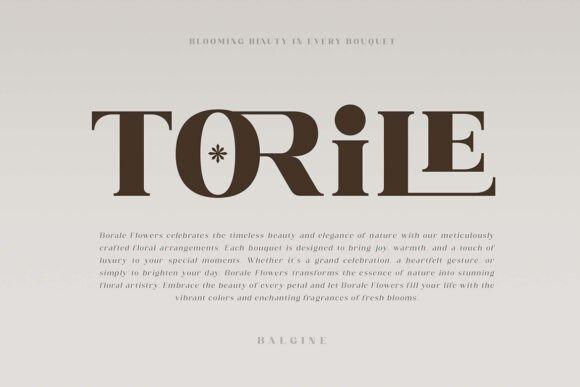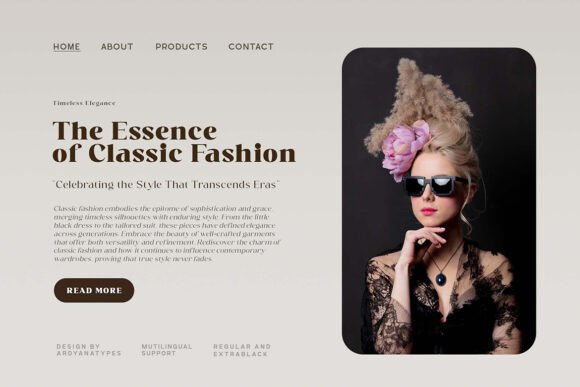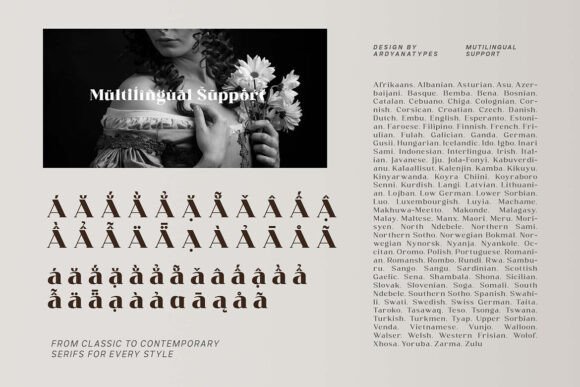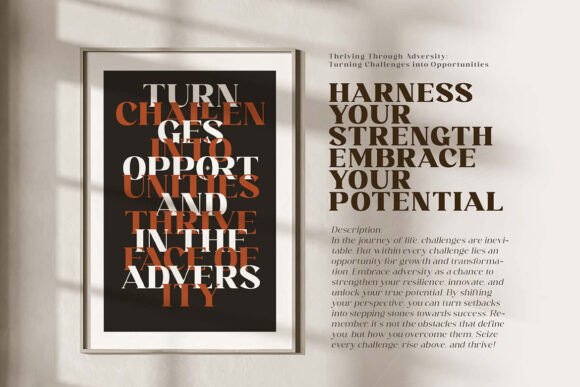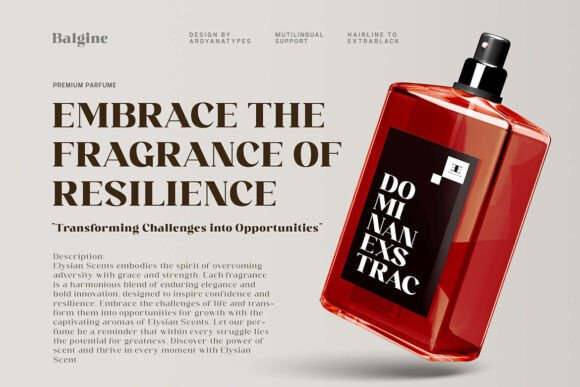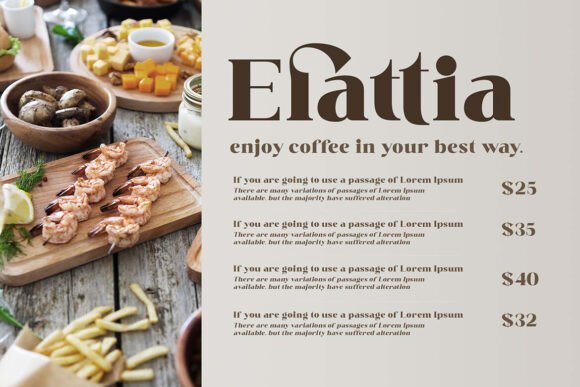
Introducing Balgine Font: Elevate Your Designs with Elegance and Versatility
In the world of typography, a well-crafted font can make all the difference in elevating a design project from ordinary to extraordinary. Meet Balgine, a serif font that embodies the perfect blend of modern sophistication and timeless elegance. Designed with precision and inspired by contemporary fonts, Balgine is equipped with full OpenType features, offering designers maximum flexibility to create stunning and professional works.
The Art of Elegance and Adaptability
Balgine’s design is characterized by its elegant yet adaptable form, making it an ideal choice for a wide range of design projects. Whether you’re working on posters, movie titles, book designs, branding, or large-scale projects, Balgine’s versatility ensures that it will seamlessly integrate into your creative vision. Its serif structure adds a touch of sophistication, while its clean lines and curves provide a modern aesthetic that will captivate your audience.
Unlock Endless Creative Possibilities with OpenType Features
One of the standout features of Balgine is its comprehensive set of OpenType features. This allows designers to push the boundaries of creativity, experimenting with various stylistic alternatives, ligatures, and character variations. With Balgine, you can effortlessly create complex and visually appealing text arrangements that elevate your design to new heights. The font’s extensive feature set includes:
- Stylistic Alternates: Switch between different stylistic variations to add visual interest to your text.
- Ligatures: Combine characters to create unique and harmonious letterforms.
- Character Variations: Access a range of alternate characters to add personality to your text.
Global Reach and Language Support
In today’s interconnected world, designers need fonts that can communicate effectively across languages and cultures. Balgine rises to this challenge, supporting multiple languages to cater to a global audience. Whether you’re working on a project that requires English, Spanish, French, or any other language, Balgine ensures that your text will look polished and professional. This extensive language support adds a layer of global value and professionalism to your designs, making it an excellent choice for international brands and projects.
Elevate Your Design’s Appearance
Balgine’s dynamic and versatile look is poised to transform your design’s appearance, taking it to the next level. Its unique blend of elegance and modernity ensures that your text will stand out in a crowded visual landscape. With Balgine, you can:
- Create stunning posters and flyers that grab attention.
- Design captivating movie titles and movie posters.
- Develop beautiful book designs that showcase your literary work.
- Craft compelling brand identities that resonate with your audience.
In conclusion, Balgine is a powerful serif font that offers designers an unparalleled level of creativity, flexibility, and professionalism. Its elegant and adaptable form, combined with its extensive OpenType features and language support, make it an ideal choice for a wide range of design projects. Whether you’re a seasoned designer or a crafty enthusiast, Balgine is ready to elevate your design’s appearance to new heights. Discover the possibilities with Balgine and unlock a world of creative potential.